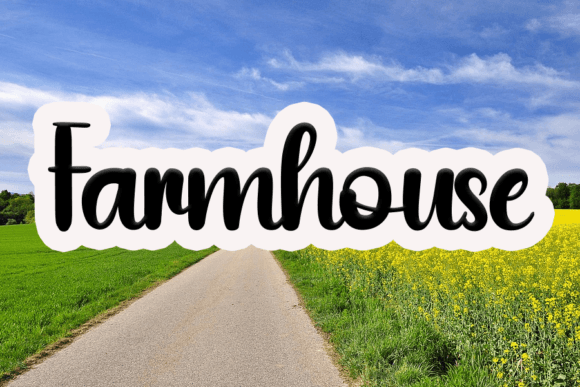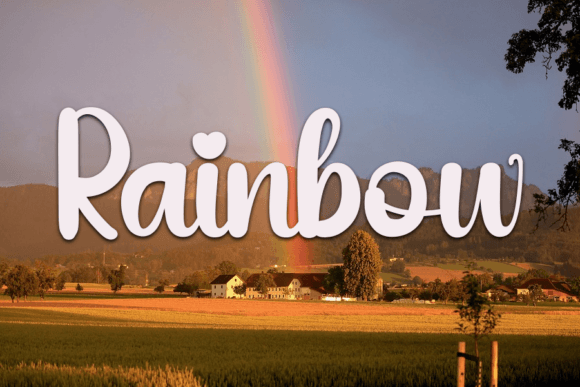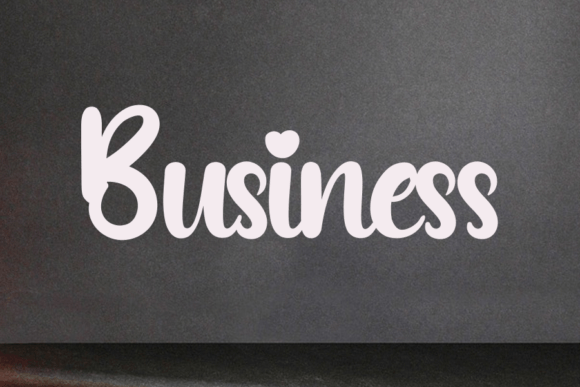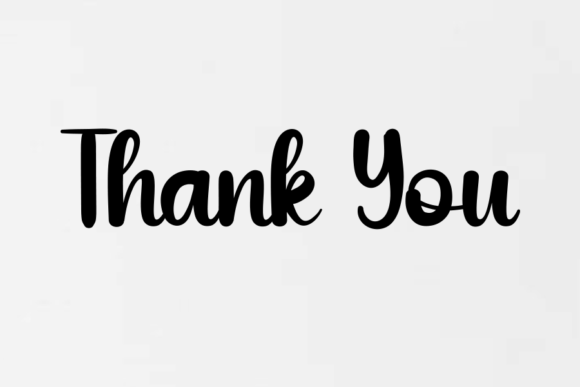
Introducing Children Font: A Simple Handwritten Delight
Are you looking for a font that can add a touch of simplicity and naturalness to your designs? Look no further than Children Font, a beautiful handwritten font that’s perfect for a wide range of applications. From greeting cards to headlines, and even craft projects, Children Font is a versatile and charming addition to any designer’s toolkit.
The Characteristics of Children Font
Children Font is a simple handwritten font that’s been carefully crafted to bring a sense of warmth and approachability to your designs. Its clean lines, rounded edges, and flowing curves make it a joy to read and look at. The font’s simplicity is part of its charm, making it easy to pair with other fonts and design elements to create a unique and visually appealing look.
What Makes Children Font So Versatile?
One of the things that sets Children Font apart is its incredible versatility. Whether you’re designing a greeting card, a poster, or a headline, this font can adapt to any style or theme. Its simplicity makes it a great choice for designs that require a clear and easy-to-read font, while its charm and character make it perfect for more creative and artistic projects.
Applications for Children Font
So, what can you use Children Font for? The possibilities are endless! Here are a few ideas to get you started:
- Greeting Cards: Add a personal touch to your greeting cards with Children Font. Its simplicity and charm make it perfect for birthdays, holidays, and special occasions.
- Headlines: Use Children Font to add a touch of personality to your headlines. Its clean lines and flowing curves make it easy to read and visually appealing.
- Craft Projects: Children Font is a great choice for craft projects, such as scrapbooking, journaling, and paper crafting. Its simplicity and charm make it perfect for adding a personal touch to your creations.
- Signs and Posters: Use Children Font to create eye-catching signs and posters. Its bold and clear lines make it easy to read from a distance.
Why Choose Children Font?
So, why should you choose Children Font for your next project? Here are just a few reasons:
- Easy to Read: Children Font is incredibly easy to read, making it perfect for designs that require clear communication.
- Versatile: Children Font can be used for a wide range of applications, from greeting cards to headlines.
- Charming: Children Font has a unique charm and character that will add a personal touch to your designs.
- Simple: Children Font is a simple font that’s easy to pair with other design elements.
Tips for Using Children Font
Here are a few tips for getting the most out of Children Font:
- Pair with Other Fonts: Children Font pairs well with other fonts, so don’t be afraid to experiment with different combinations.
- Use for Headlines: Children Font is perfect for headlines, so use it to add a touch of personality to your titles.
- Add Texture: Add texture to your designs by layering Children Font over other design elements.
- Experiment with Colors: Children Font looks great in a variety of colors, so experiment with different hues to find the perfect look for your design.
Children Font is a simple yet charming handwritten font that’s perfect for designers and crafters. Its versatility, ease of use, and unique charm make it a great addition to any designer’s toolkit. Whether you’re designing greeting cards, headlines, or craft projects, Children Font is sure to add a touch of simplicity and naturalness to your designs. So why not give it a try and see what amazing creations you can come up with?